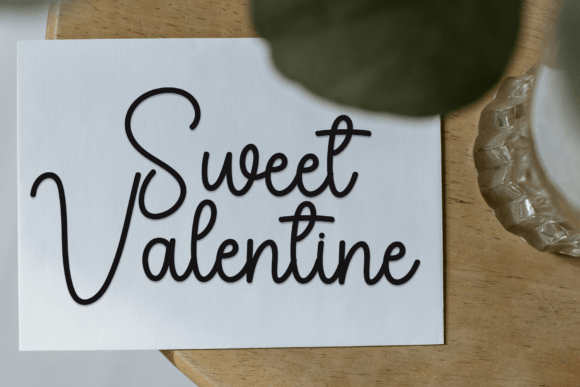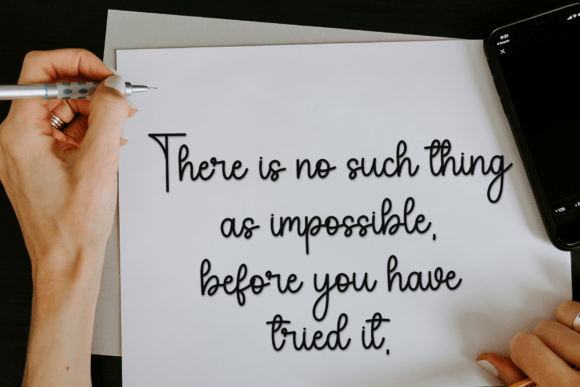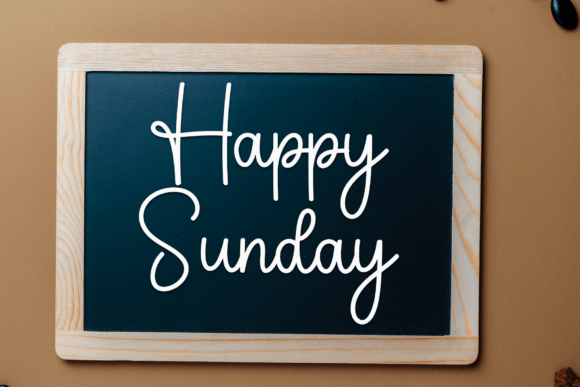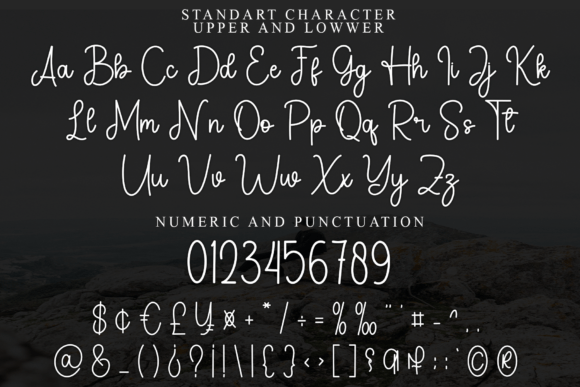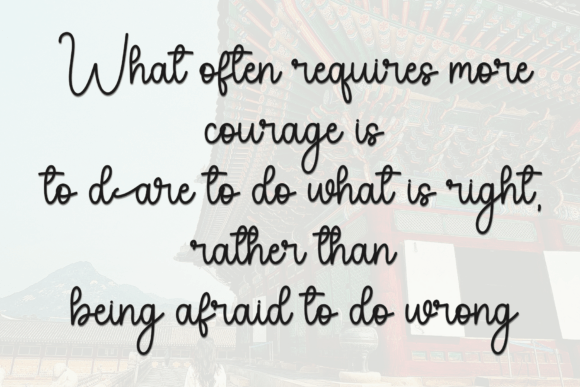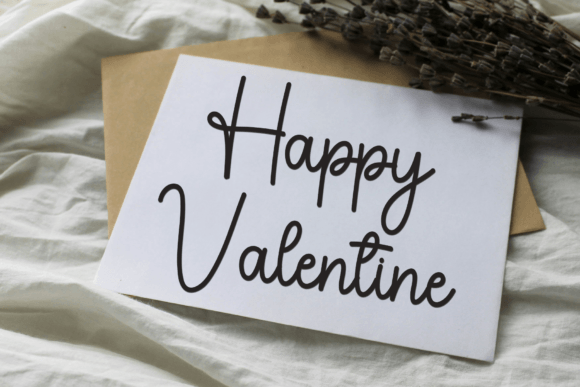
Introducing Artic Font: A Festive and Merry Typeface for the Holiday Season
The holiday season is upon us, and with it comes the joy of creating festive and merry designs that capture the spirit of this special time of year. One of the most important elements of any design is the typography, and that’s where Artic Font comes in. This beautiful and decorative typeface is specifically designed to add a touch of enchantment to your holiday-themed projects, making it perfect for greeting cards, gift tags, and more.
The Magic of Artic Font
Artic Font is a true gem in the world of typography. With its whimsical flair and decorative elements, this font is sure to bring a cheerful and nostalgic ambiance to your words. Whether you’re a designer, crafter, or simply someone who loves the holiday season, Artic Font is the perfect choice for any project that requires a touch of festive magic.
One of the standout features of Artic Font is its PUA (Private Use Area) encoding. This means that you can access all of the amazing glyphs and ligatures with ease, giving you complete creative control over your typography. With PUA encoding, you can use the font with any design software, making it easy to incorporate into your workflow.
Artic Font is specifically designed with the holiday season in mind. Its festive and merry design makes it perfect for a wide range of projects, including:
- Greeting cards: Add a touch of elegance and sophistication to your holiday greeting cards with Artic Font.
- Gift tags: Make your gifts stand out with beautifully designed gift tags featuring Artic Font.
- Holiday-themed projects: From invitations to party decorations, Artic Font is the perfect choice for any holiday-themed project.
Why Choose Artic Font?
So why choose Artic Font over other typefaces? Here are just a few reasons why designers and crafters love this beautiful font:
- Unique and decorative design: Artic Font features a unique and decorative design that sets it apart from other typefaces.
- Easy to use: With PUA encoding, Artic Font is easy to use with any design software.
- Festive and merry: This font is specifically designed to capture the spirit of the holiday season.
- High-quality: Artic Font is a high-quality typeface that is designed to deliver exceptional results.
Tips for Using Artic Font
Here are a few tips for getting the most out of Artic Font:
- Experiment with different sizes and colors: Artic Font looks great in a variety of sizes and colors, so don’t be afraid to experiment.
- Pair with other fonts: Try pairing Artic Font with other fonts to create a unique and interesting look.
- Use with holiday-themed graphics: Artic Font is perfect for use with holiday-themed graphics, such as snowflakes, holly, and mistletoe.
Artic Font is a beautiful and festive typeface that is perfect for any holiday-themed project. With its decorative elements, whimsical flair, and PUA encoding, this font is sure to bring a touch of enchantment to your designs. Whether you’re a designer, crafter, or simply someone who loves the holiday season, Artic Font is a must-have for any creative project. So why wait? Download Artic Font today and let your typography shine with the magic of this beautiful font!